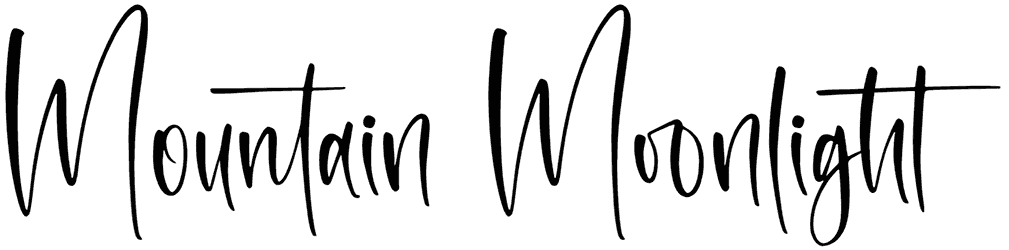
Mountain Moonlight Font
In order to establish an intimate relationship with your audience, choosing casual words with a lively tone can be helpful. As a handwritten font, Mountain Moonlight, with its pen-lettered style, is able to do this. This script font with A-Z characters is a cool illustration for many subjects and projects, from postcards to movie ads.